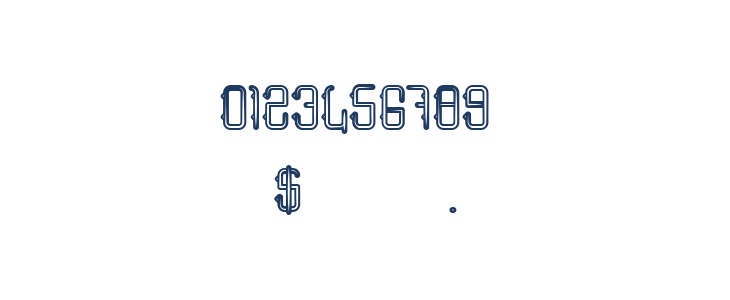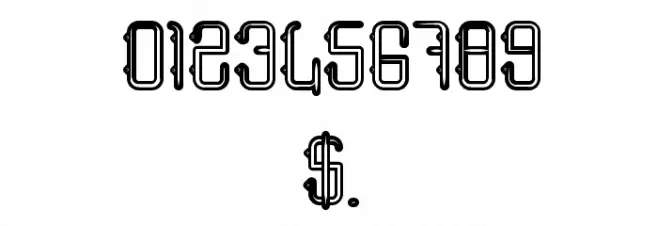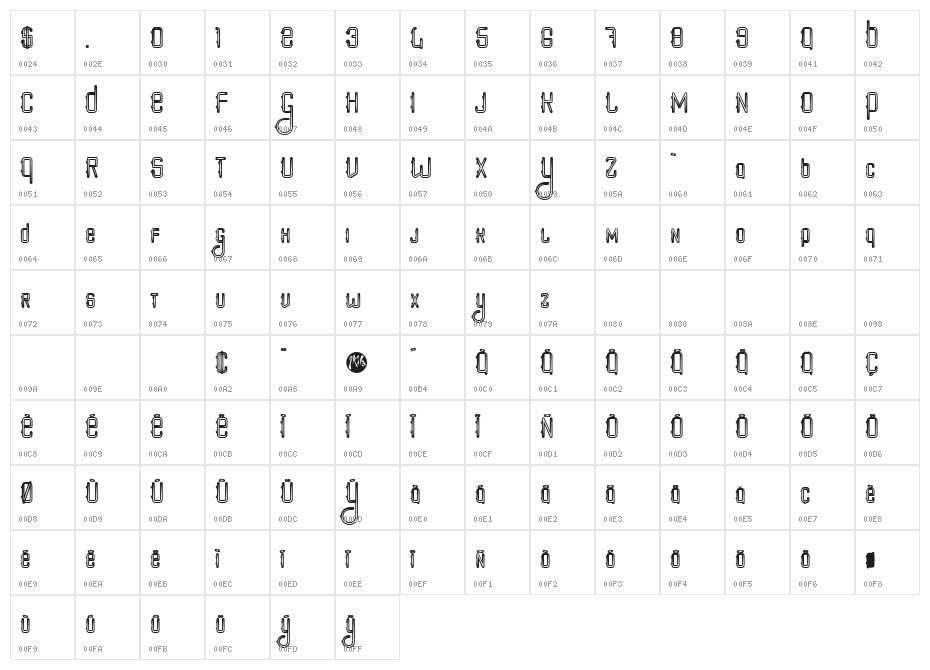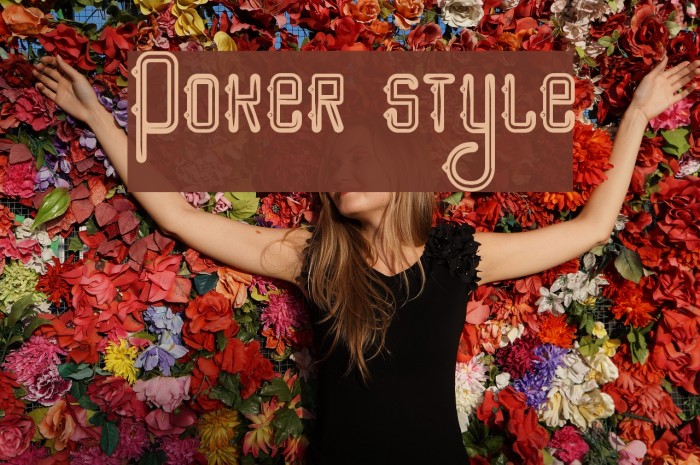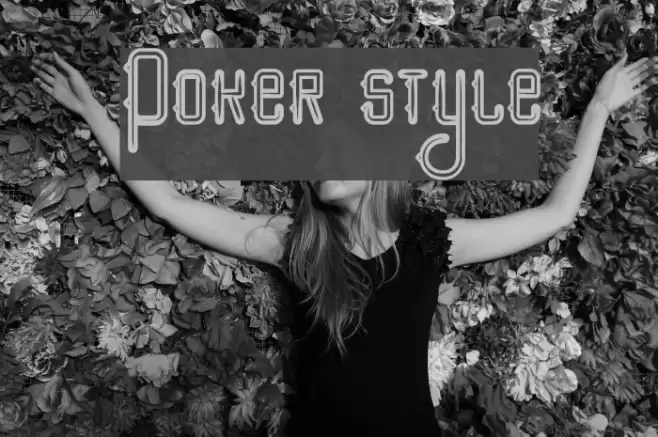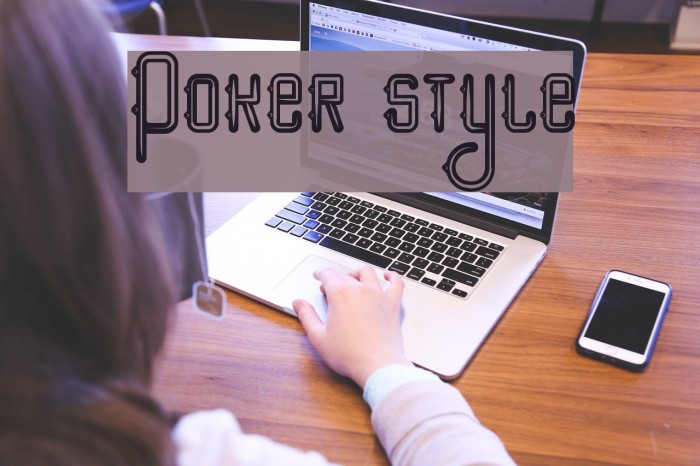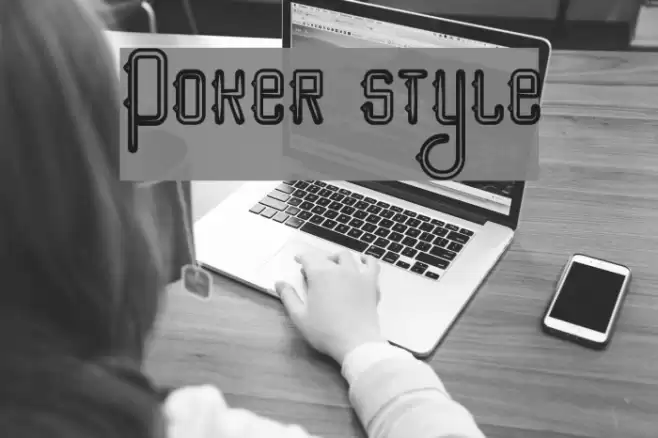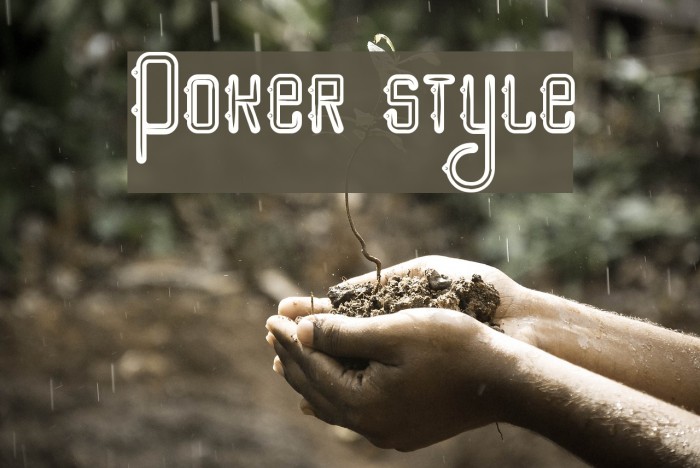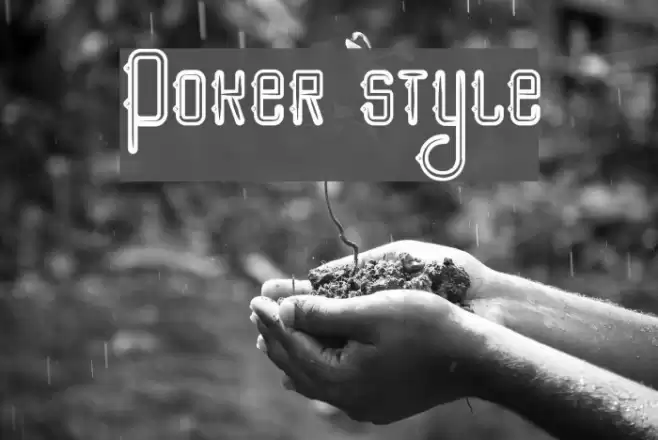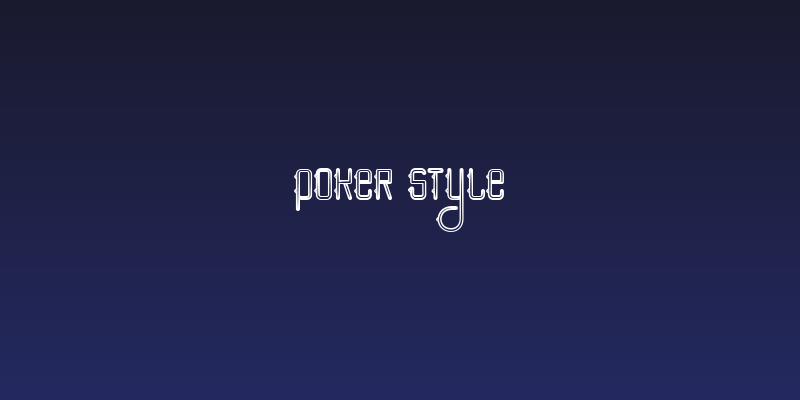
Poker style Font
Poker style Description
This font features a unique and decorative style with a poker-themed aesthetic. The characters are outlined with a double line, creating a bold and eye-catching appearance. The uppercase and lowercase letters maintain a consistent design, with some letters incorporating playful loops and curves. The numbers and special characters follow the same decorative pattern, making the font suitable for themed projects. The overall design is reminiscent of vintage casino signage, with a modern twist that adds a touch of elegance and flair.
| Proposed Projects | Ideal for casino-themed events, posters, branding for gaming apps, or any project requiring a vintage yet modern decorative touch. |